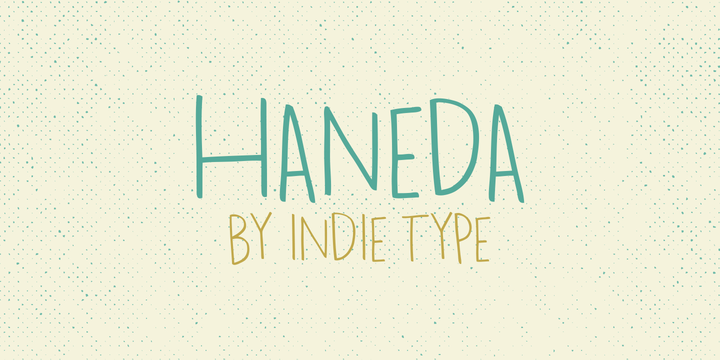
Haneda is a handwritten font by Indie Type. This font family is friendly, fun and easy to read. Haneda is made up of mix widths giving it a unique look. Perfect for magazines, book covers, stationery, greeting cards and websites.